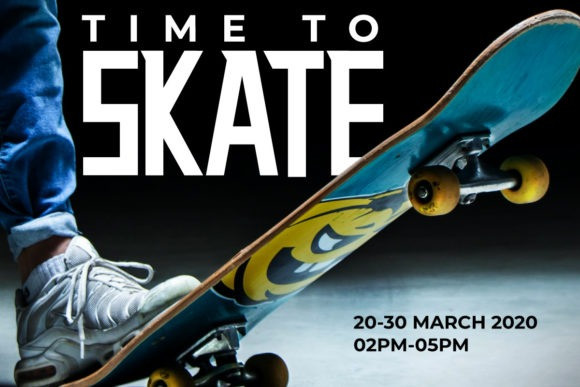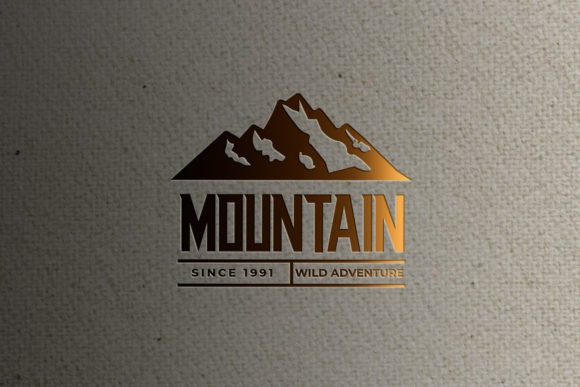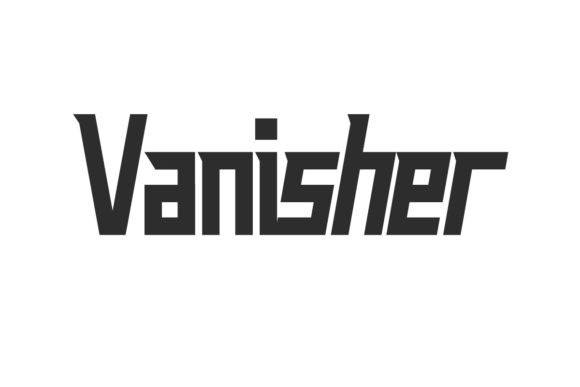
Vanisher Font
Vanisher Font is a bold, techno styled serif font. It will be suitable for many businesses and industries, including sports, technology, startup, gadget, games, movies and more.